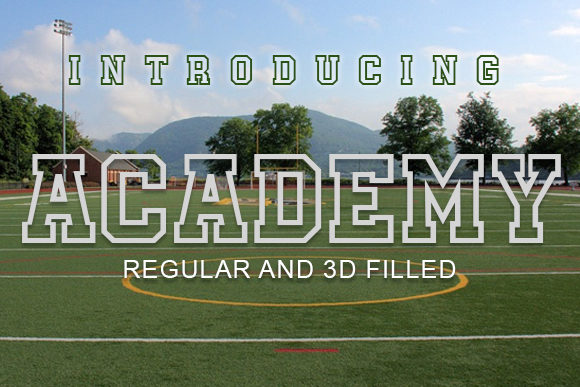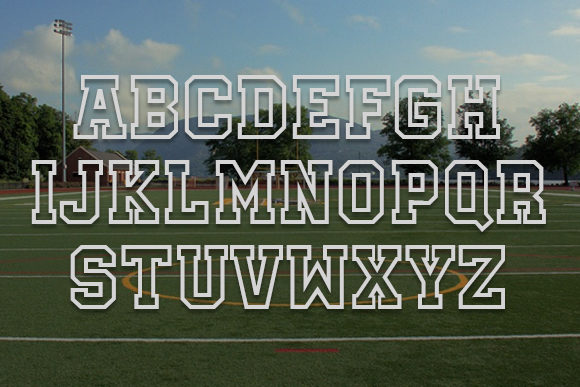
Academy is a strong and assertive outlined display font. No matter the topic, this font will be an incredibly asset to your fonts’ library, as it has the potential to elevate any creation.
Academy Font